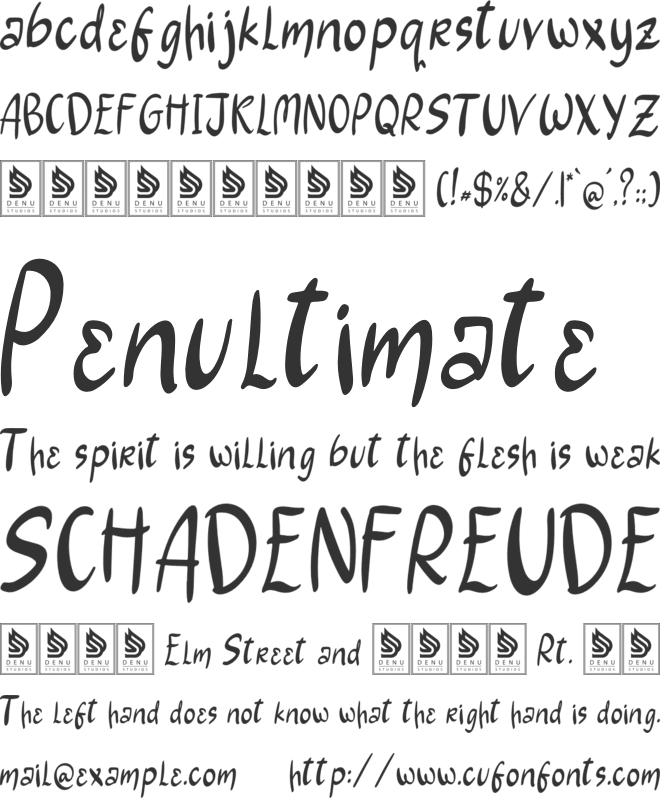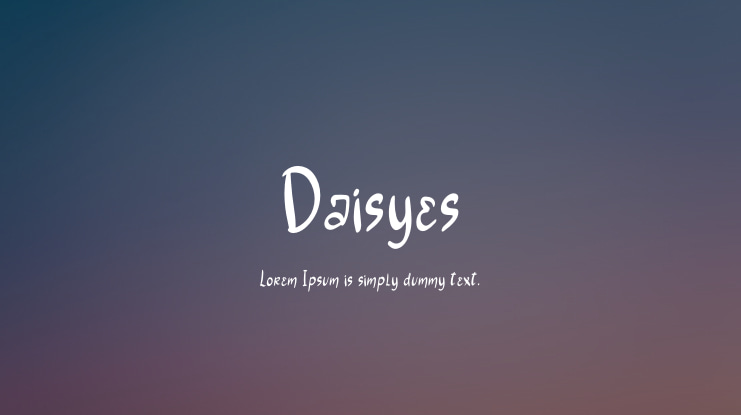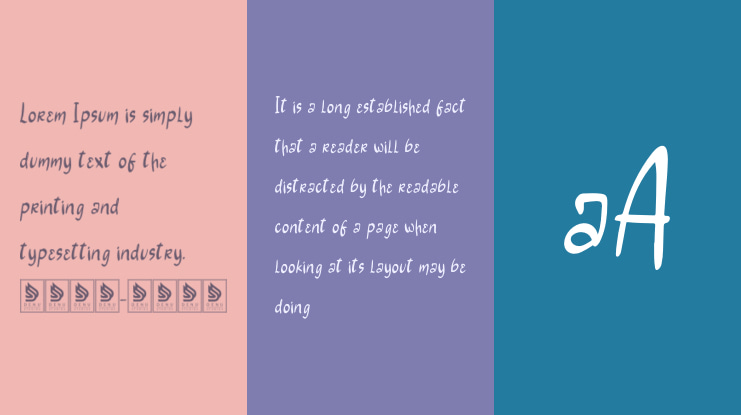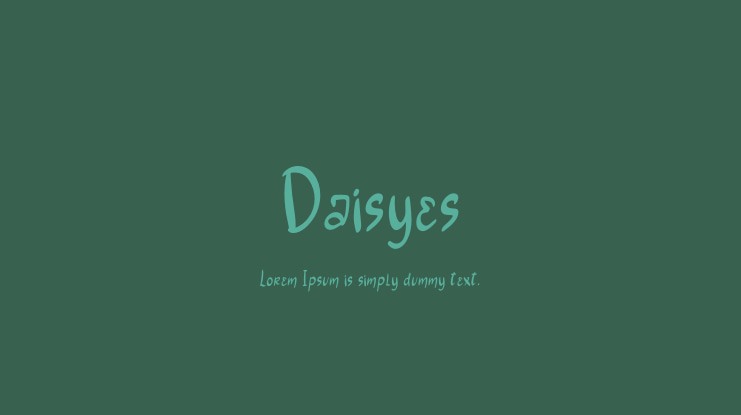
Daisyes | Hand Drawn Dual Font is ideal for a wide range of projects, including:
- Logos - Branding projects - Homeware designs - Product packaging - Mugs - Quotes - Posters - Shopping bags - T-shirts - Book covers - Name cards - Invitation cards - Greeting cards - Labels - Photography - Watermarks - Special events - And any of your other lovely projects needing a hand-drawn dual font touch.